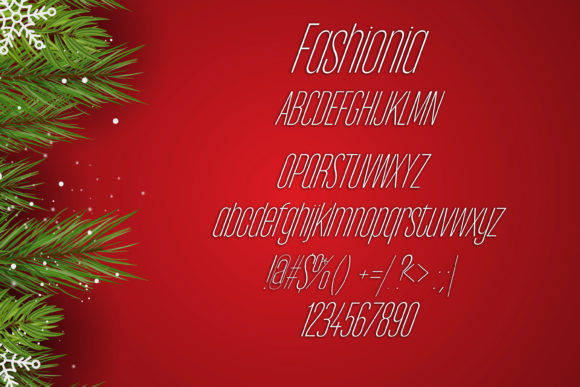
Fashionia Font: Elevate Your Design with Style and Sophistication
Fashionia is a thin and stylish display font that will take any text to the next level. Designed for creatives and designers, Fashionia is the perfect choice for those looking to add a touch of elegance and sophistication to their work. In this article, we’ll explore the features and benefits of Fashionia, and how it can be used to enhance your designs.
The Characteristics of Fashionia Font
Fashionia is a modern sans-serif font that exudes style and refinement. Its thin lines and sleek curves make it perfect for use in a variety of design applications, from fashion branding and advertising to packaging and editorial design. The font’s clean and minimalist aesthetic ensures that it will complement any design without overpowering it.
One of the key features of Fashionia is its versatility. The font comes in a range of weights and styles, allowing you to use it for both headlines and body copy. Whether you’re looking to create a bold statement or add a touch of subtle elegance, Fashionia has got you covered.
Benefits of Using Fashionia Font
So why choose Fashionia over other fonts? Here are just a few benefits of using this stylish display font:
- Elegance and sophistication: Fashionia adds a touch of refinement and luxury to any design, making it perfect for high-end brands and designers.
- Versatility: With a range of weights and styles, Fashionia can be used for both headlines and body copy, making it a great all-around font.
- Legibility: Despite its thin lines, Fashionia is highly legible, even at small sizes, making it perfect for use in a variety of design applications.
- Uniqueness: Fashionia’s modern and sleek aesthetic ensures that your designs will stand out from the crowd.
How to Use Fashionia Font in Your Designs
So how can you use Fashionia in your designs? Here are a few ideas to get you started:
- Fashion branding: Use Fashionia to create elegant and sophisticated fashion branding, from logos to packaging.
- Advertising: Fashionia is perfect for use in advertising, particularly for high-end brands looking to create a luxurious and refined aesthetic.
- Editorial design: Use Fashionia to add a touch of style and sophistication to your editorial designs, from magazines to blogs.
- Packaging: Fashionia is a great choice for packaging design, particularly for high-end or luxury brands.
Tips for Pairing Fashionia with Other Fonts
While Fashionia is a beautiful font on its own, it can also be paired with other fonts to create a unique and interesting aesthetic. Here are a few tips for pairing Fashionia with other fonts:
- Pair with a bold font: Pair Fashionia with a bold font to create contrast and add visual interest to your design.
- Use a serif font: Pairing Fashionia with a serif font can add a touch of elegance and sophistication to your design.
- Experiment with script fonts: Fashionia can also be paired with script fonts to create a unique and stylish aesthetic.
Fashionia is a thin and stylish display font that is perfect for designers and creatives looking to add a touch of elegance and sophistication to their work. With its versatile range of weights and styles, Fashionia can be used in a variety of design applications, from fashion branding and advertising to packaging and editorial design. Whether you’re looking to create a bold statement or add a touch of subtle elegance, Fashionia is the perfect choice.